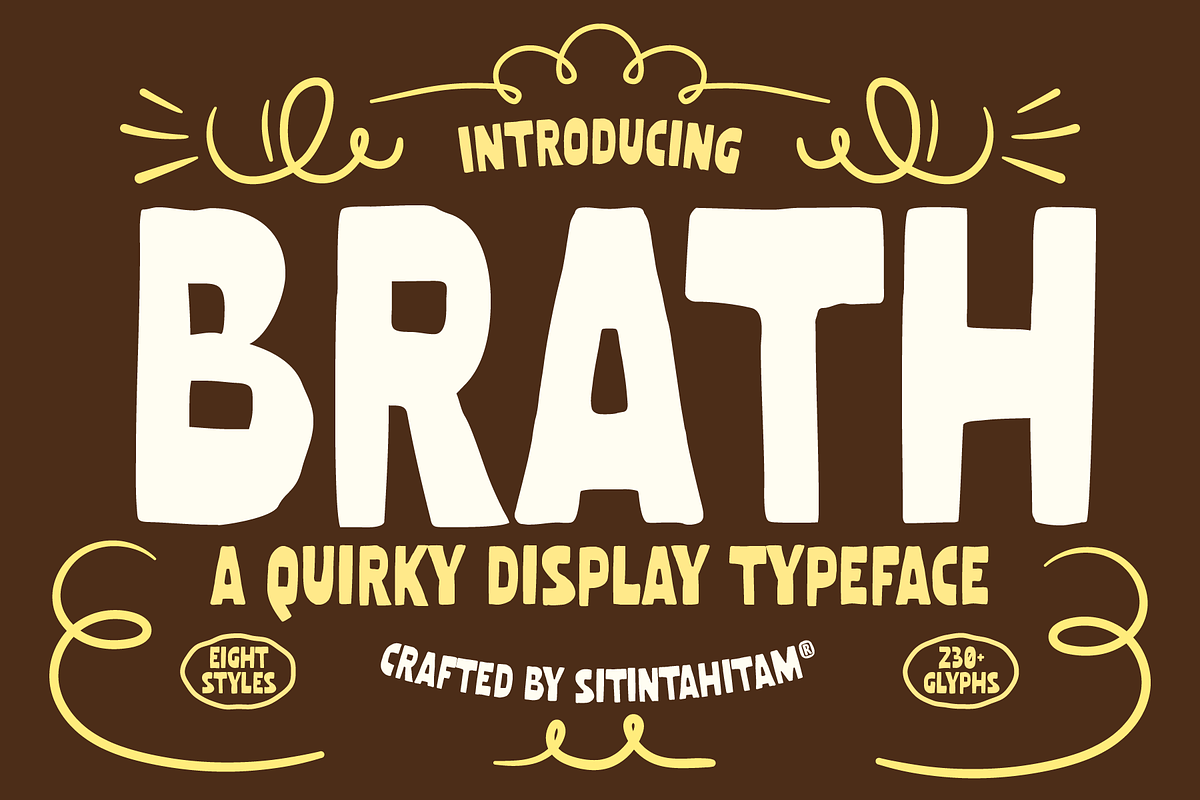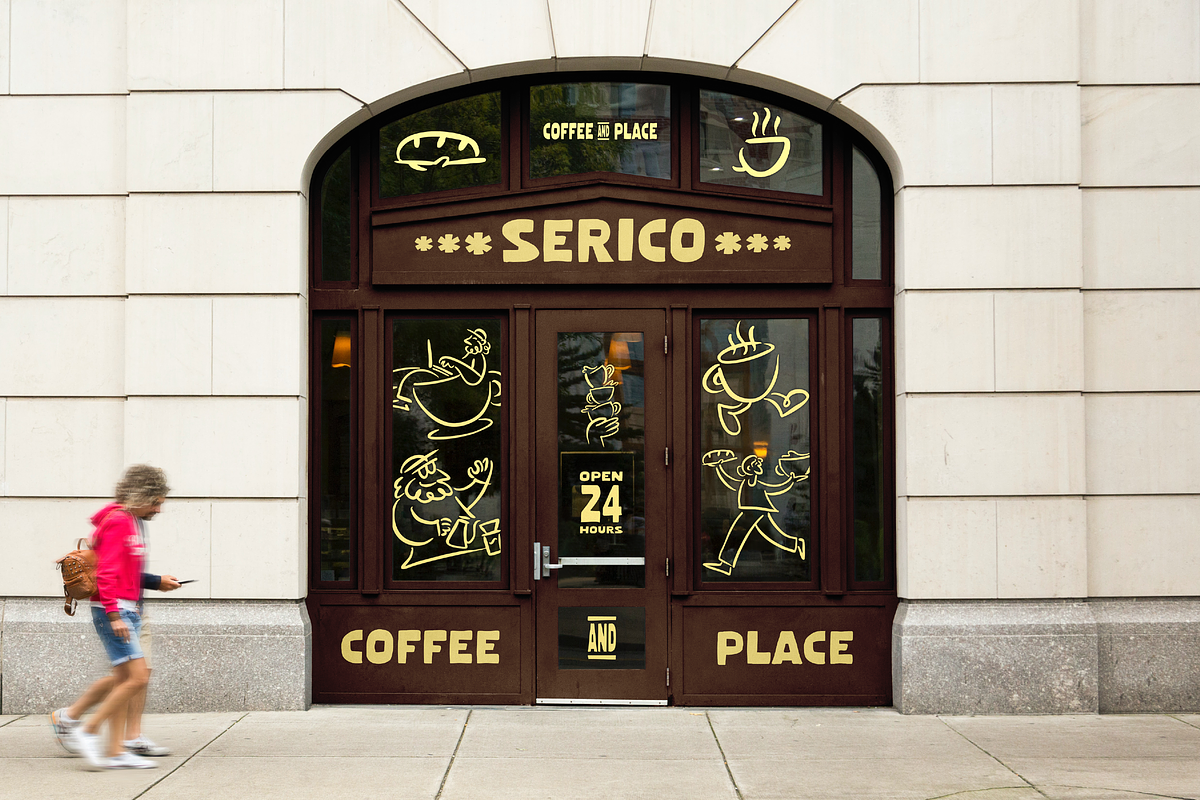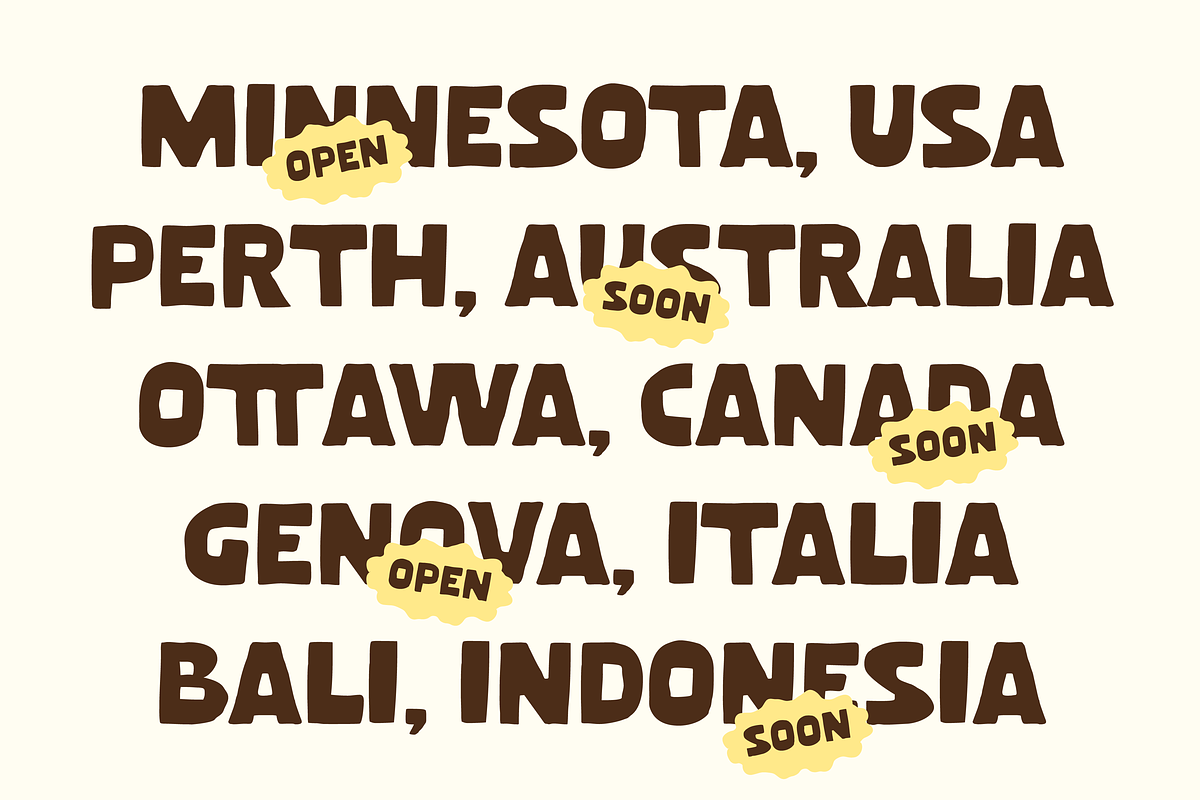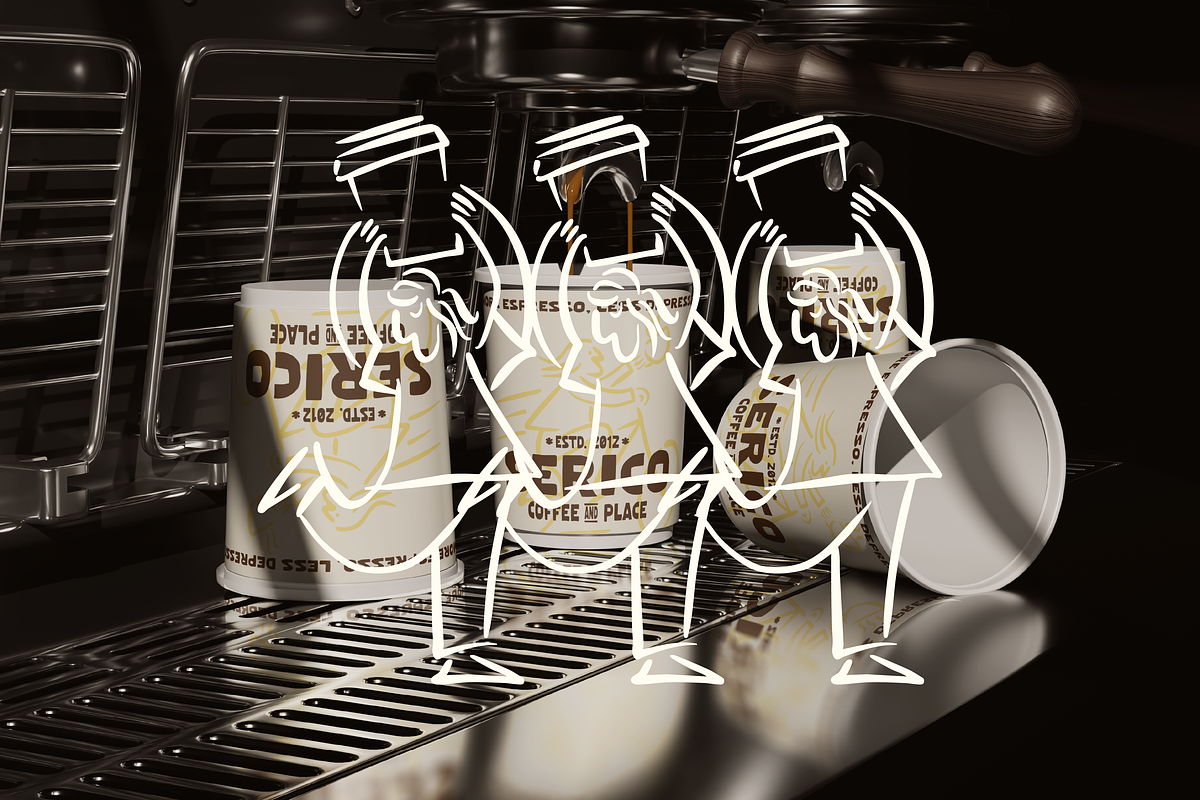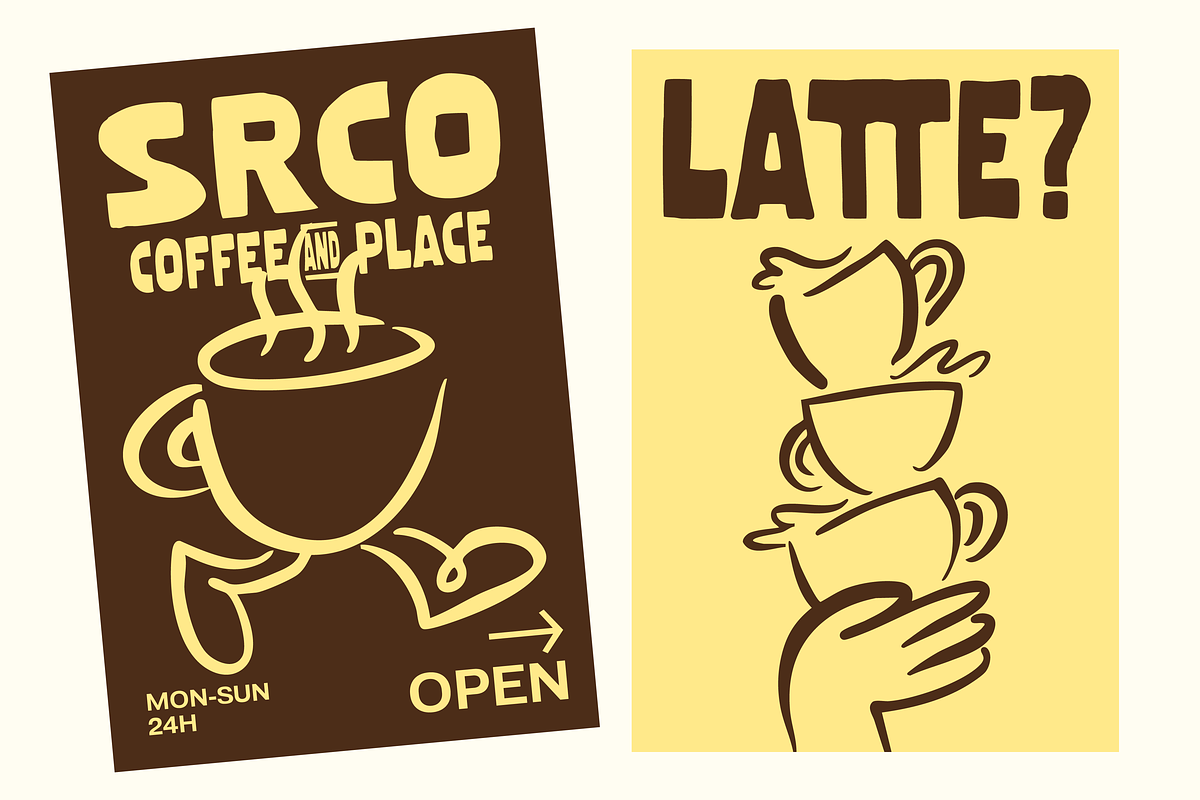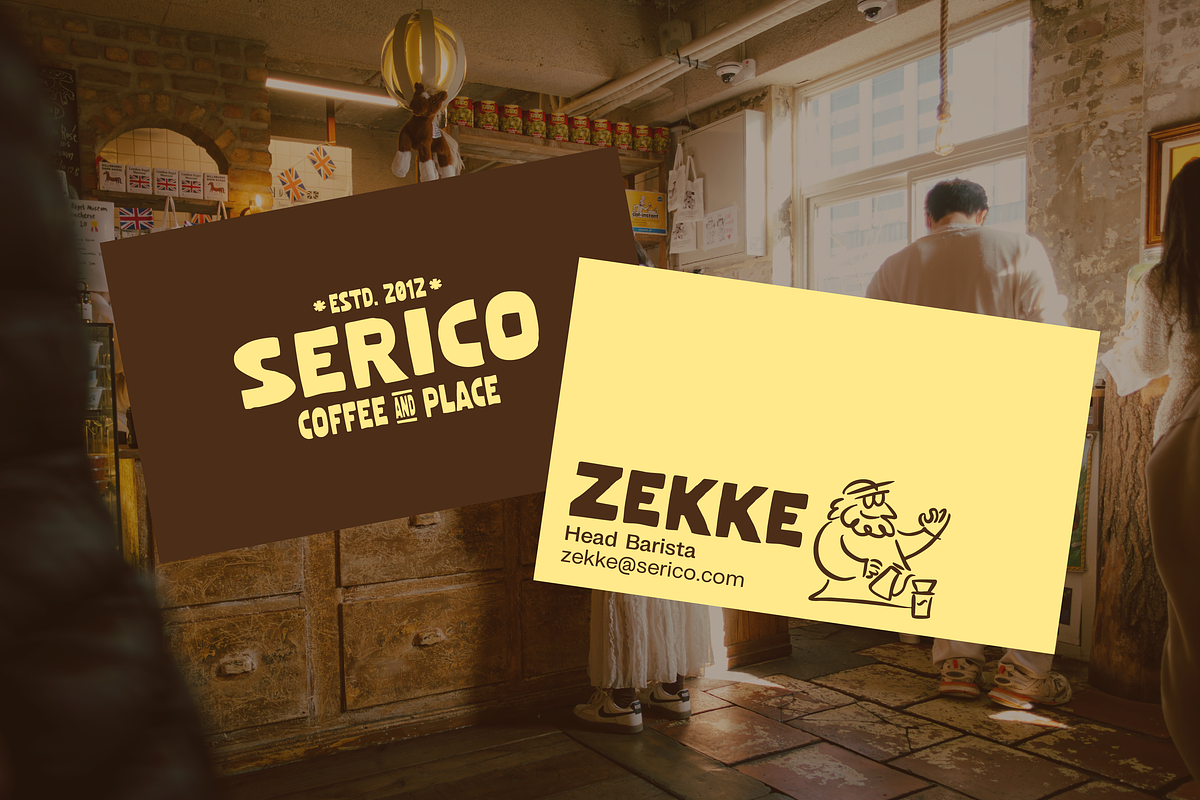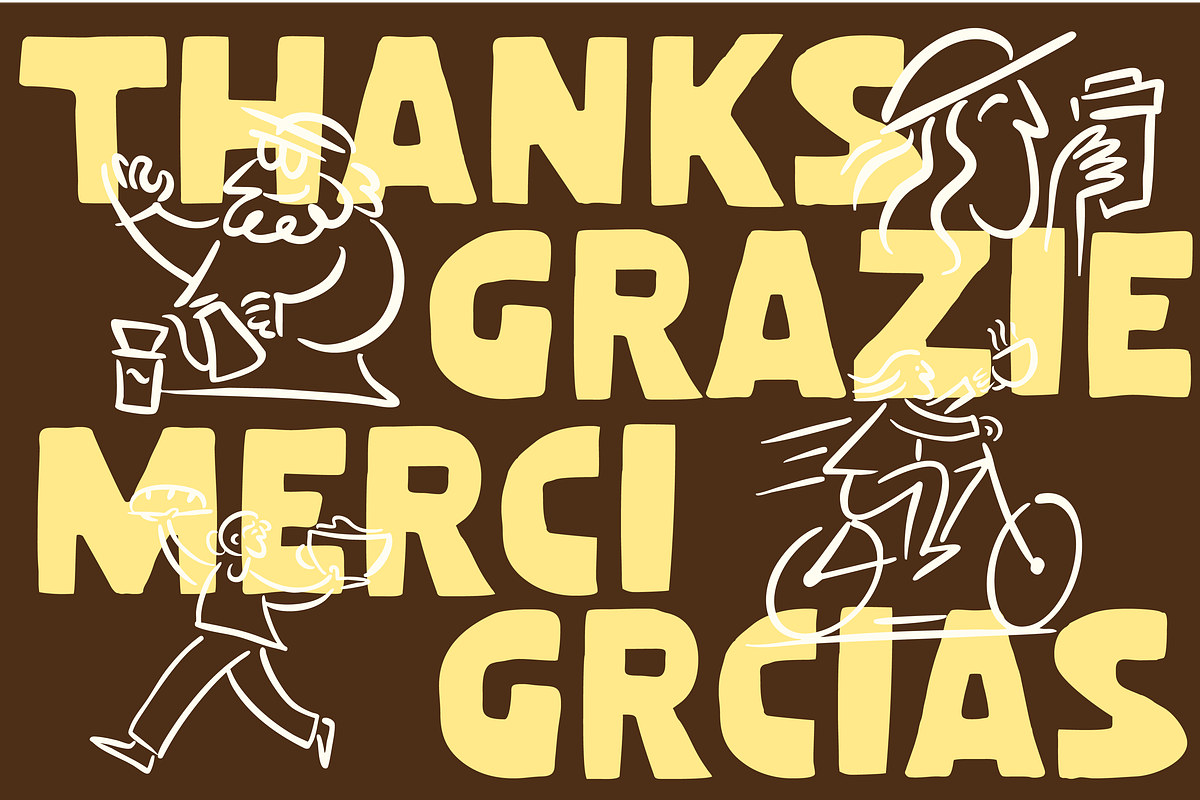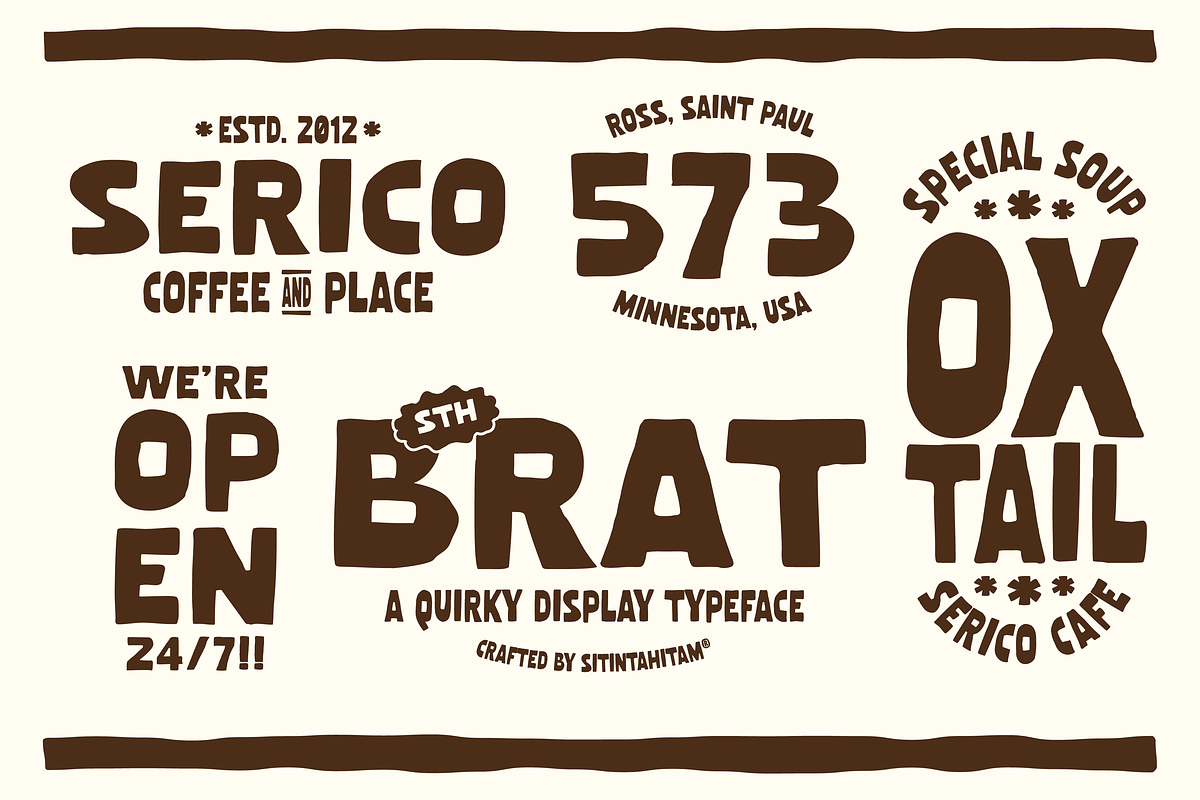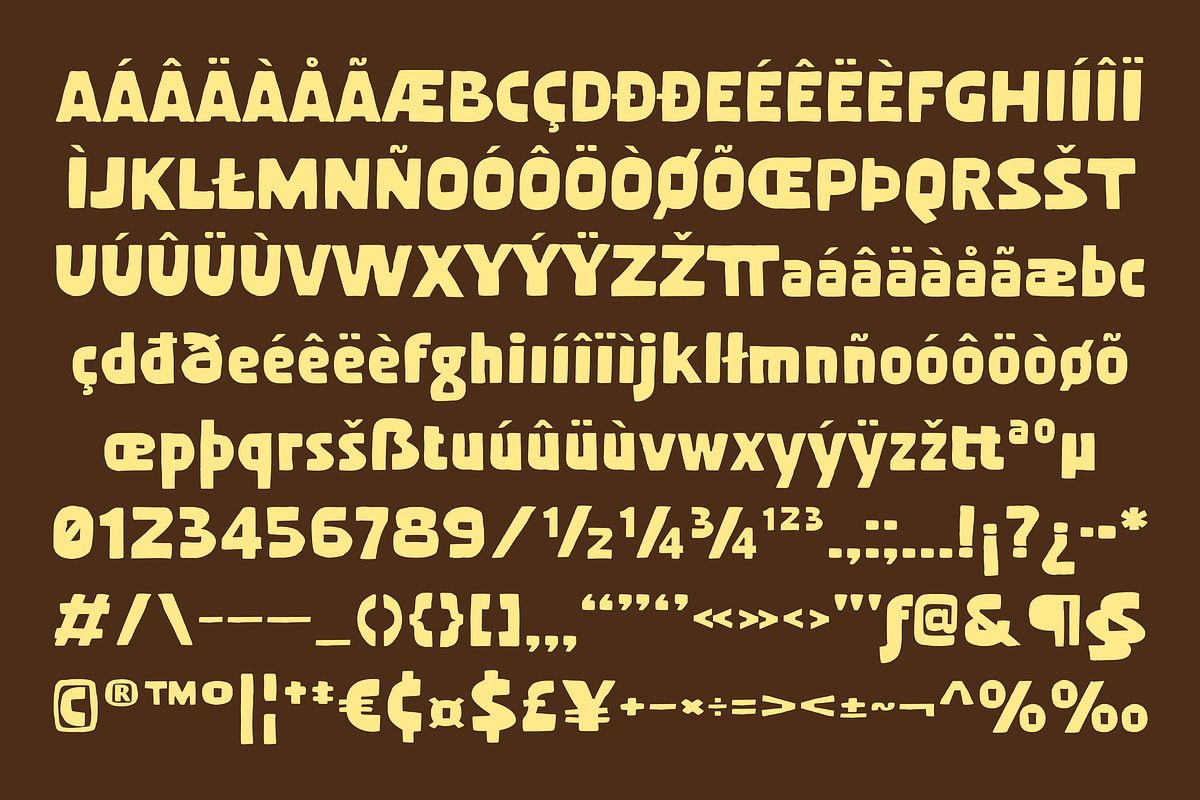
STH Brath Quirky Display Typeface
STH Brath is a quirky display typeface inspired from urban society. STH Brath comes with bold, bouncy, and hand-drawn feels. This typeface have a 8 styles you can mix and match to your mood. Suitable for any graphic designs such as branding materials, print, logo, poster, packaging .etc